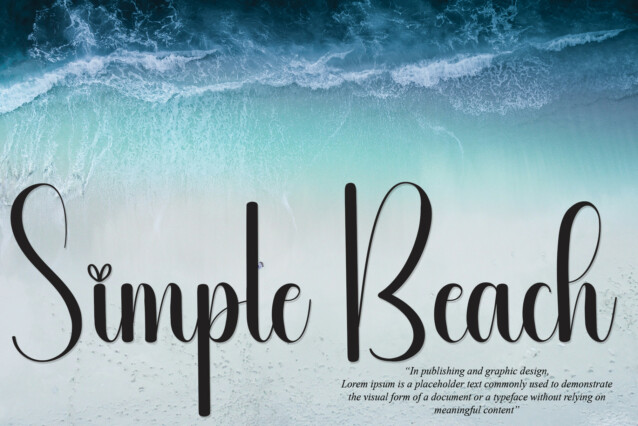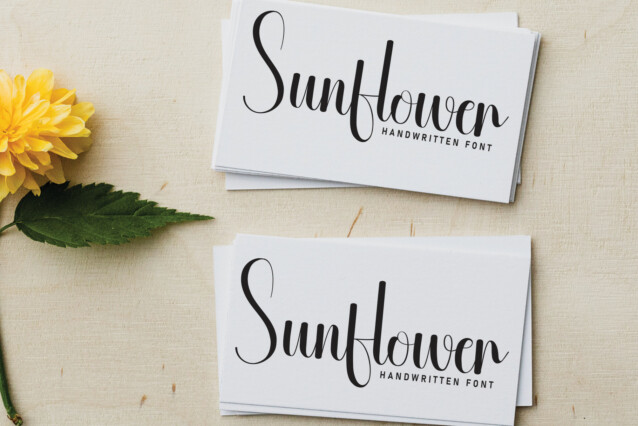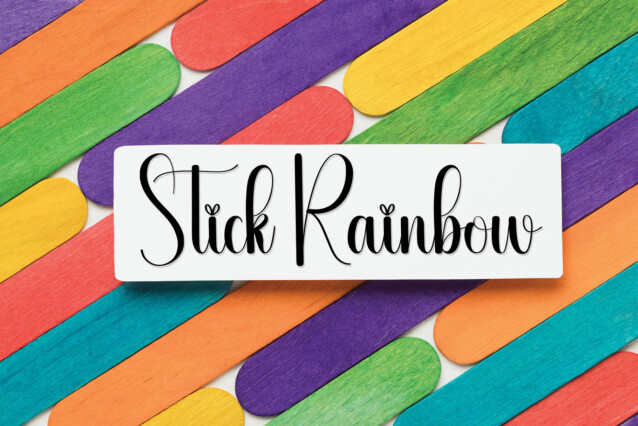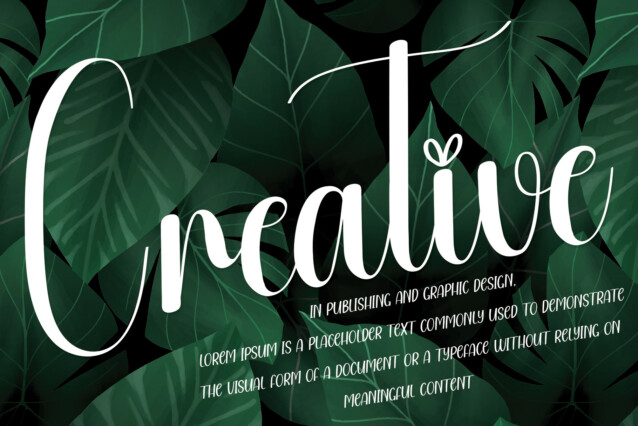
Asian Script Typeface
Asian Script Typeface is a sweet and delicate handwritten font. Dainty and joyful, this font will be ideal for writing wedding invitations, cards or any other design that may need a romantic, personalized touch!